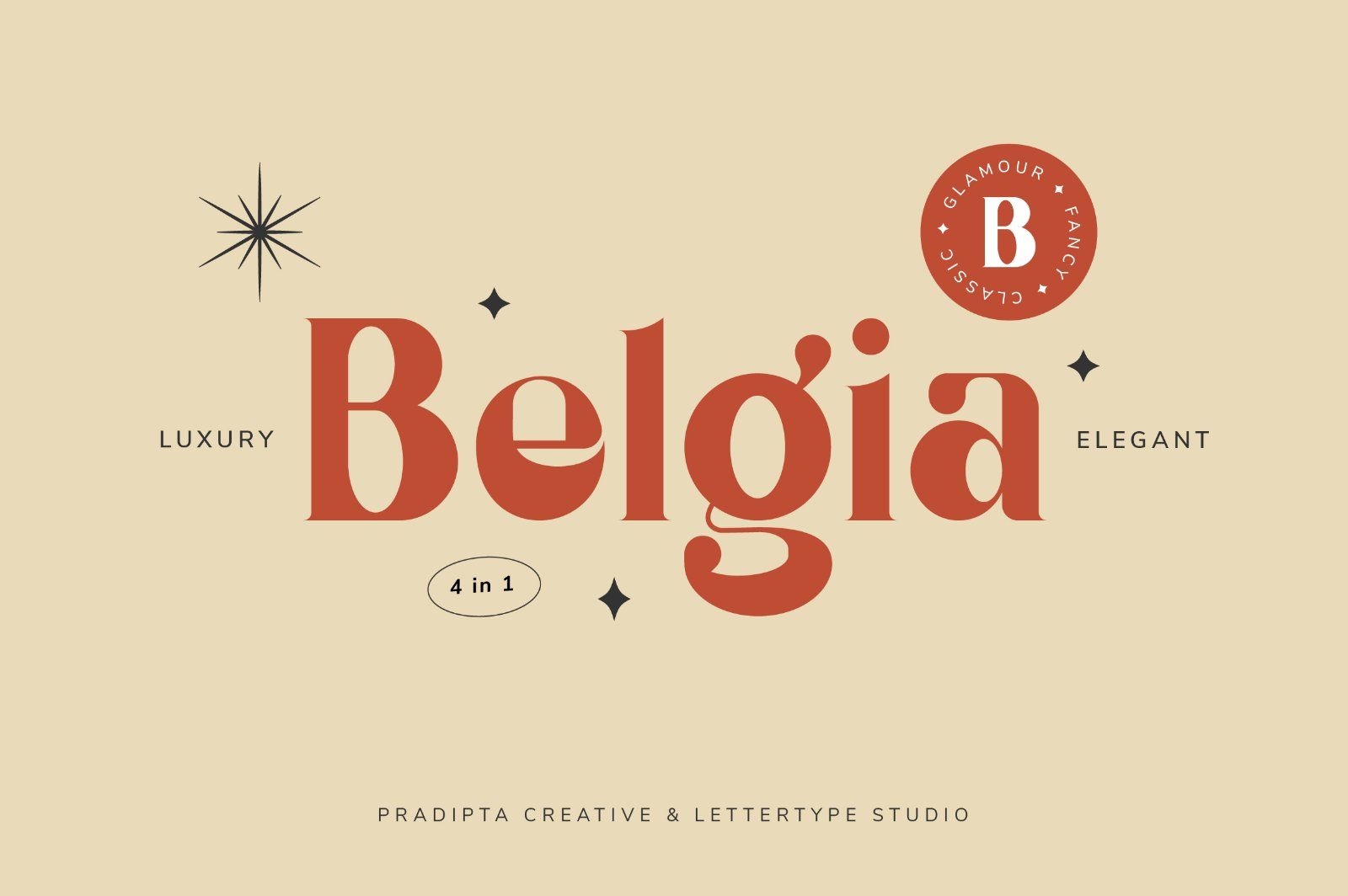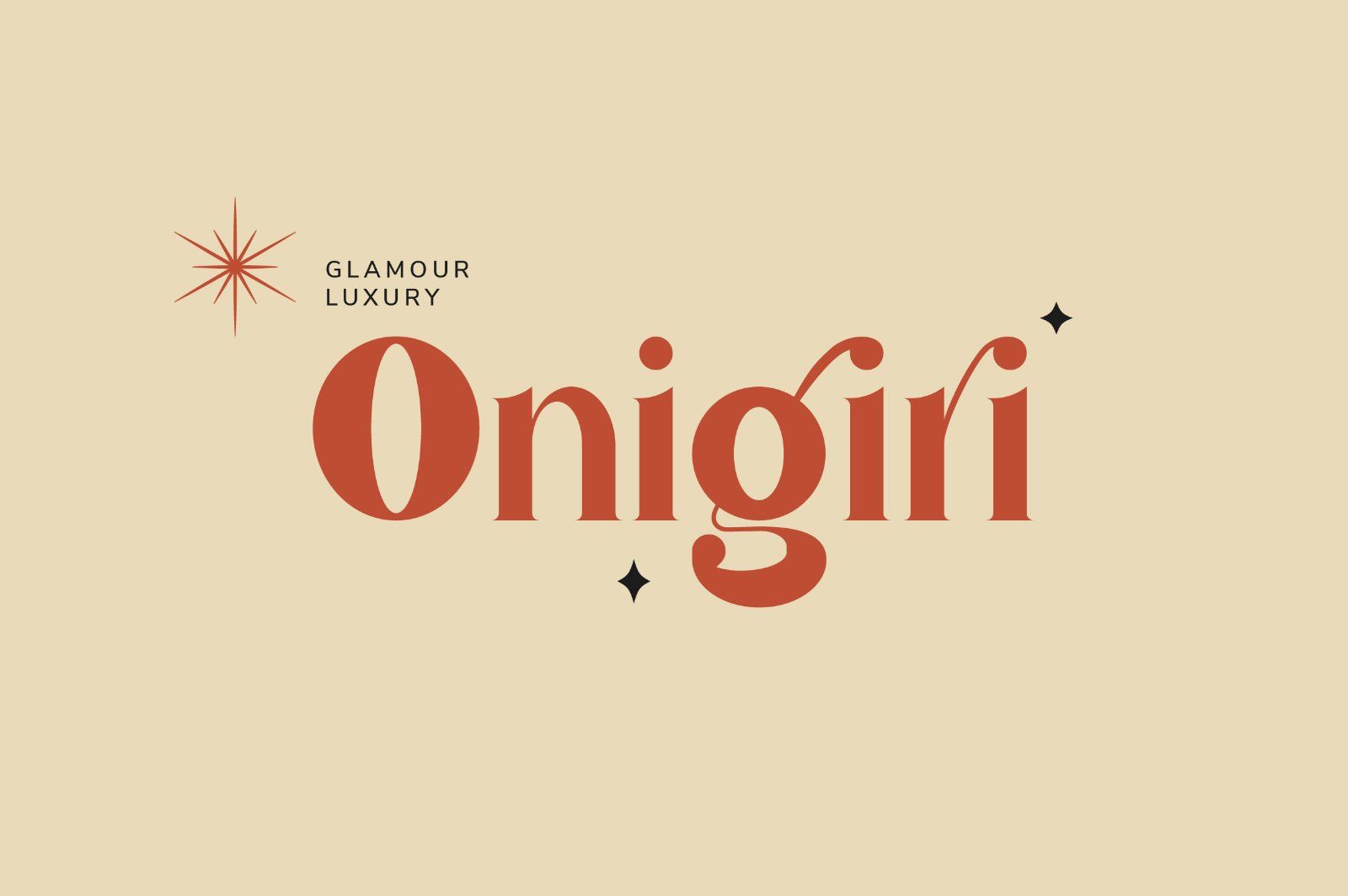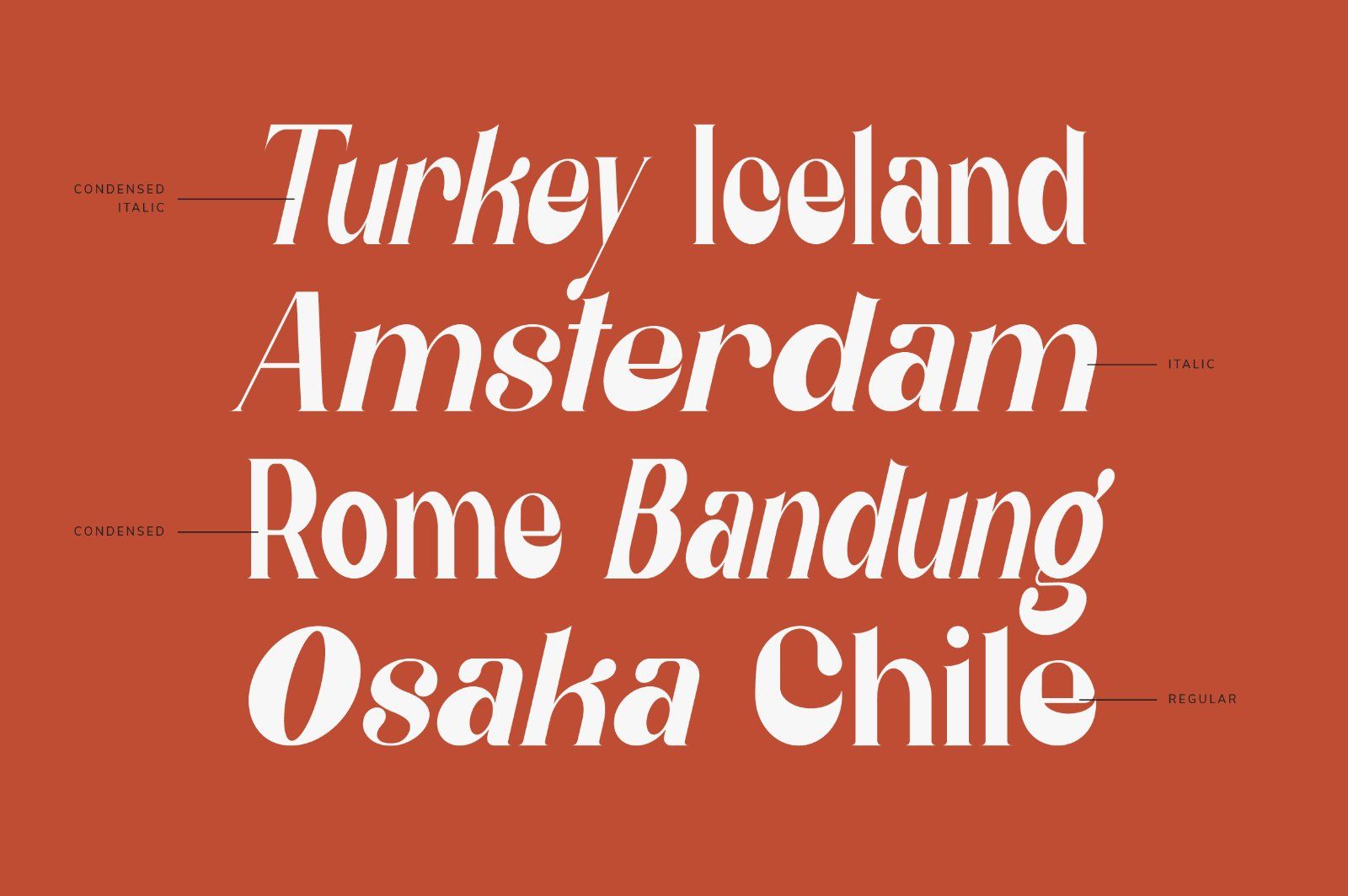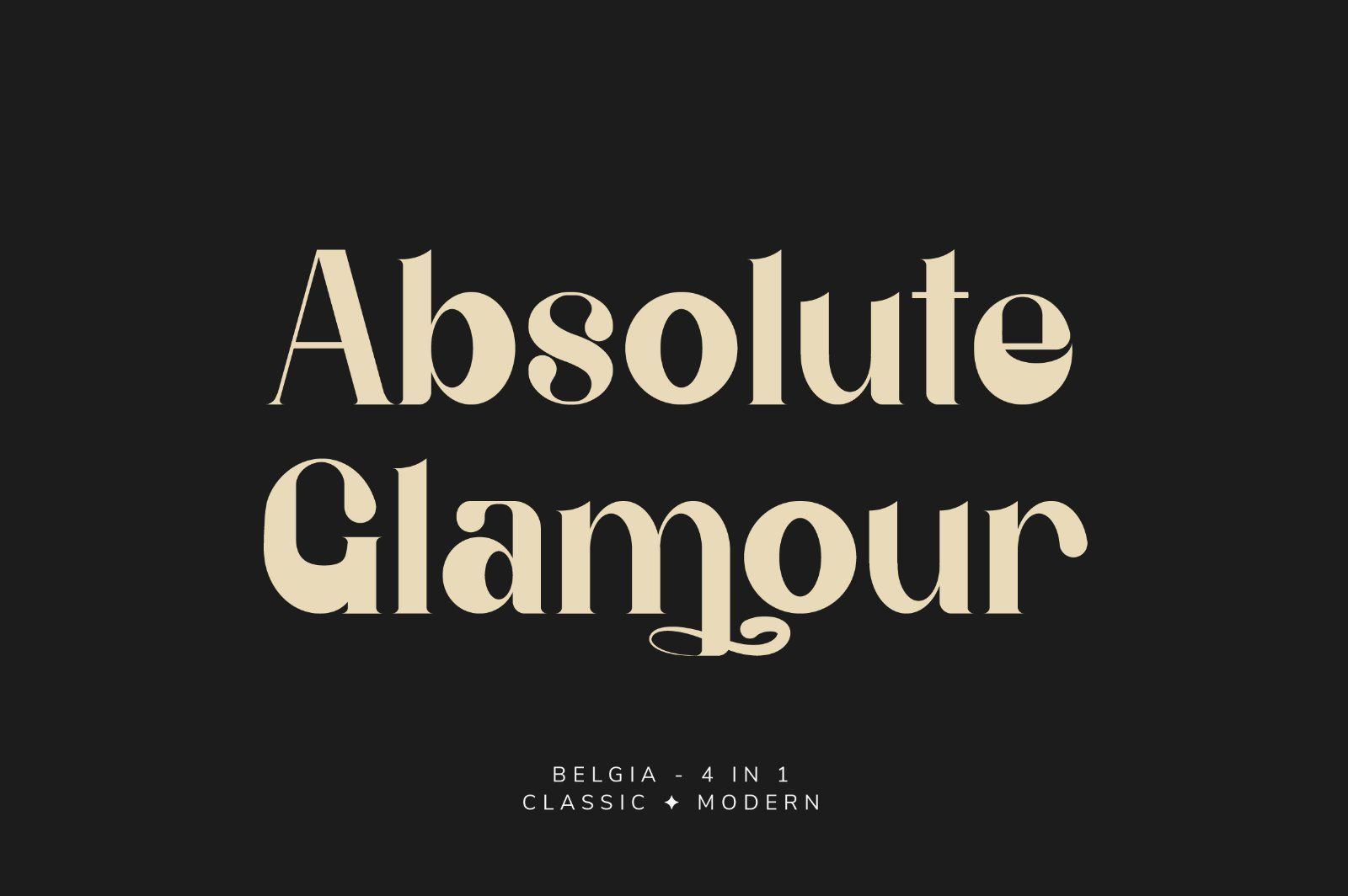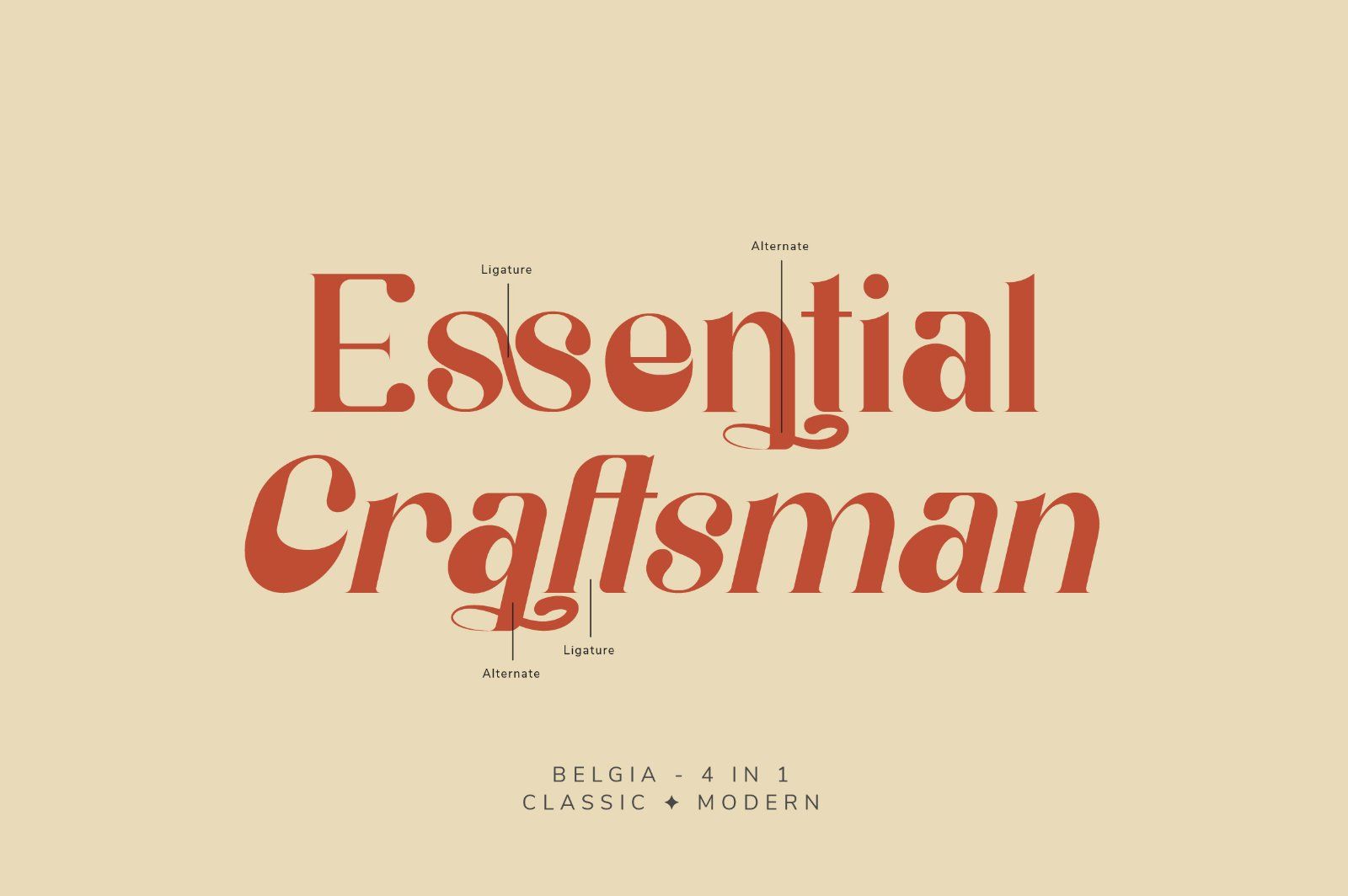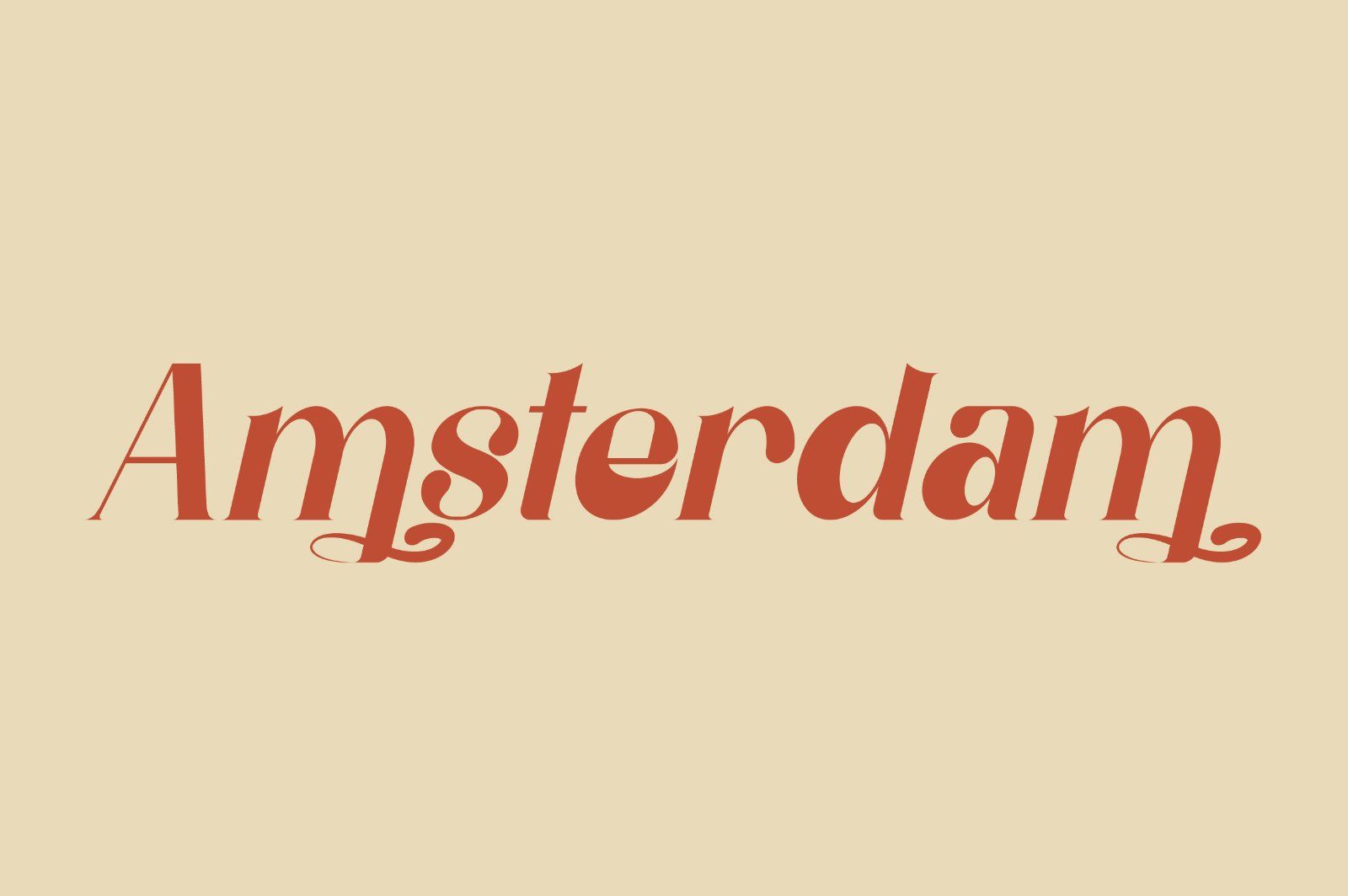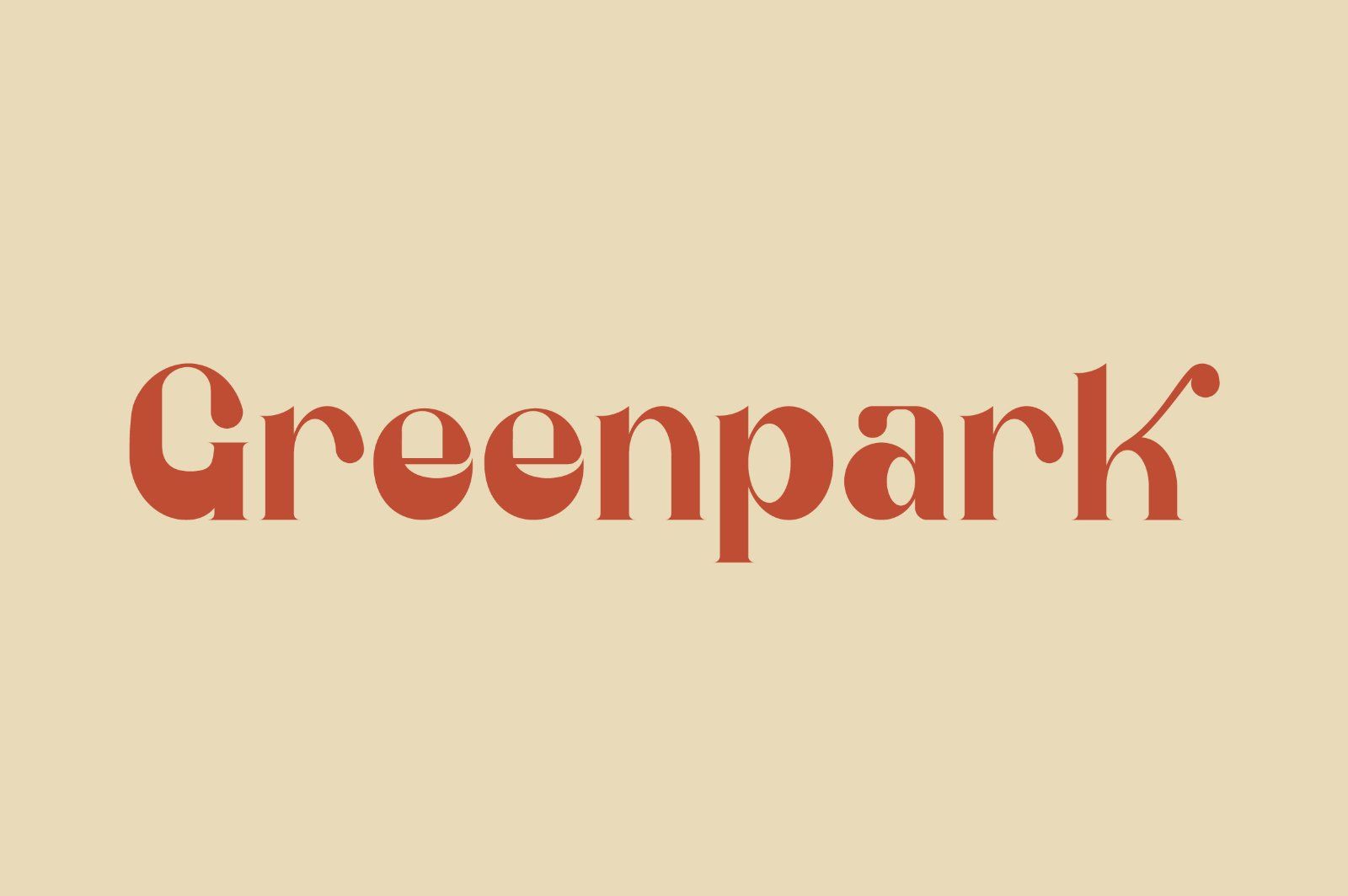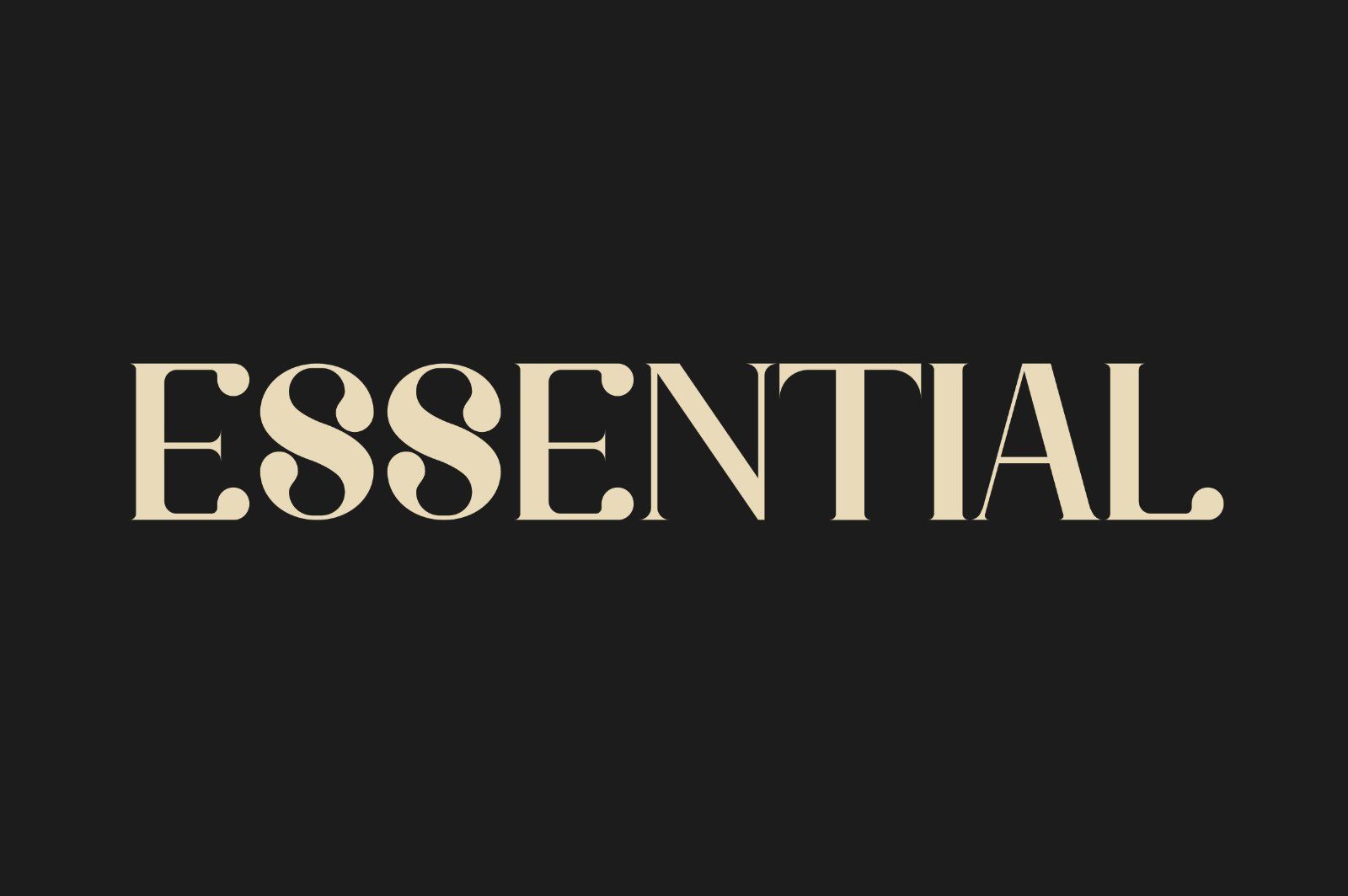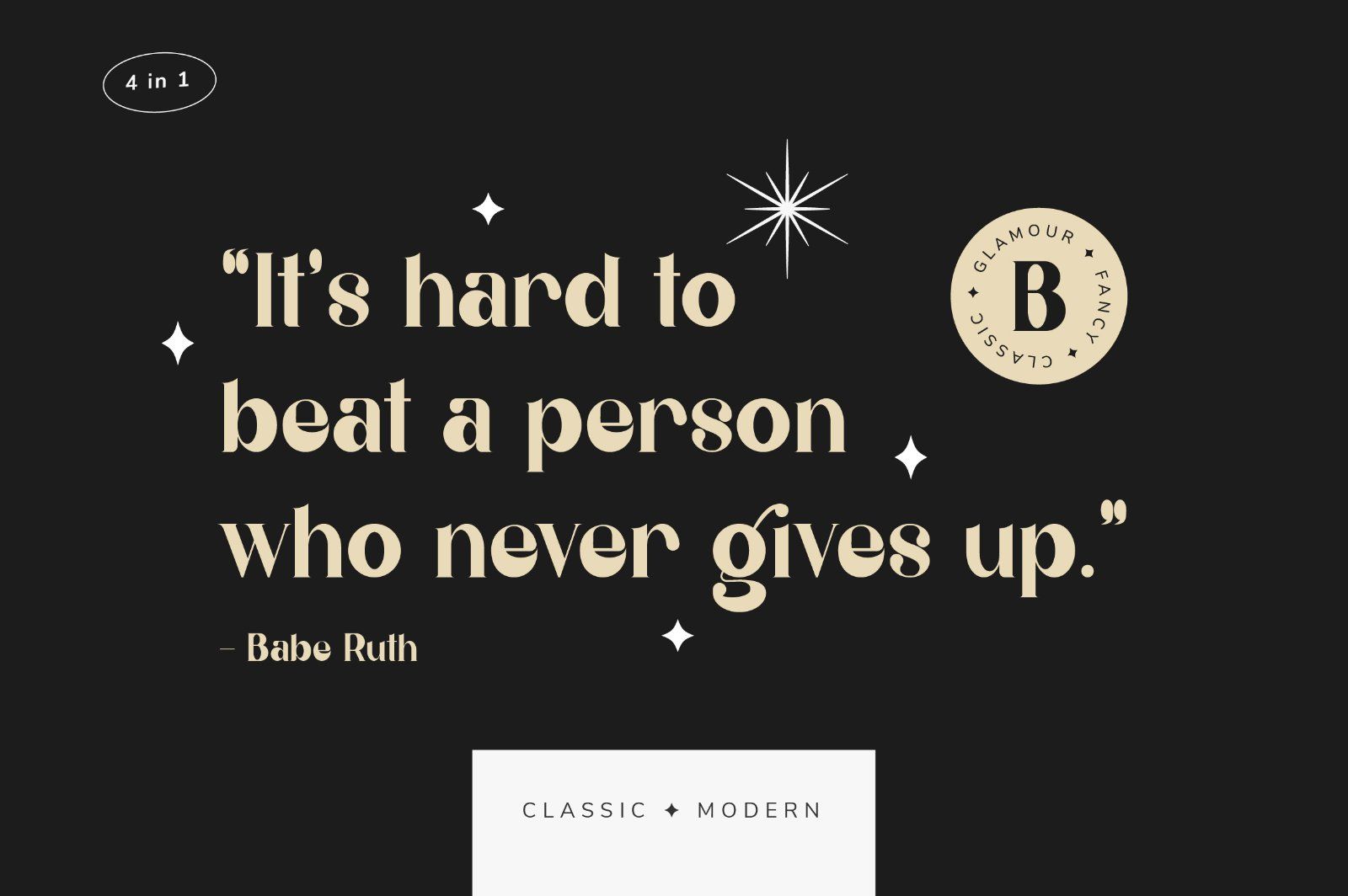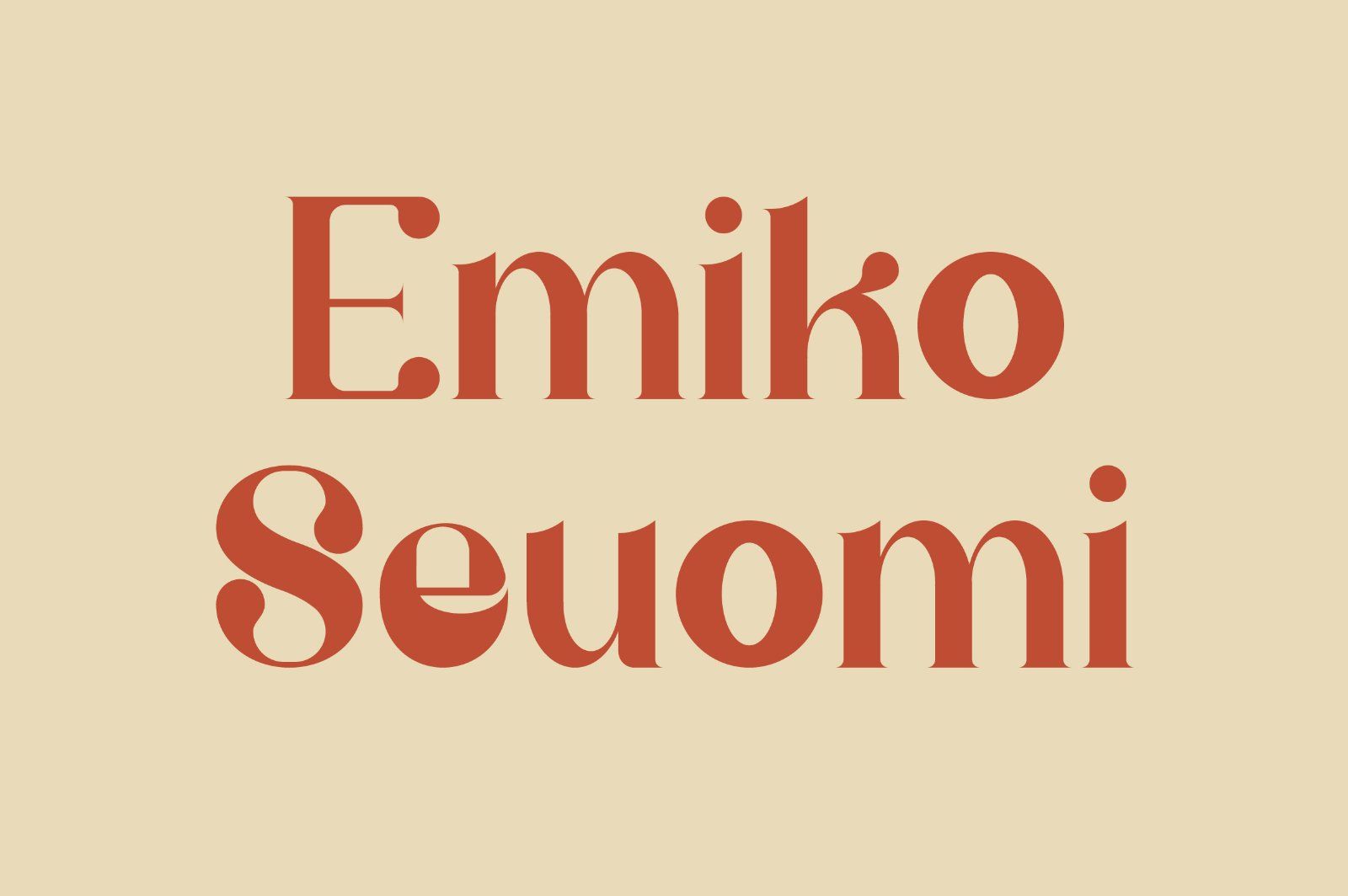
Belgia Serif is a classic, glamour and fancy font. This font will be perfect for logo design, branding, clothing, signage, posters, wedding invitations and so much more! My goal in creating this font was to create a mix of serif fonts with modern and classic styles, which will help your project to be more luxury and elegant. Don't Miss Out!
Belgia Comes With:
• Lowercase and Uppercase
• Stylistic Ligature
• Stylistic Alternate
• Accented characters
• Belgia Font Style (4 style)
• Multiple Languages Supported